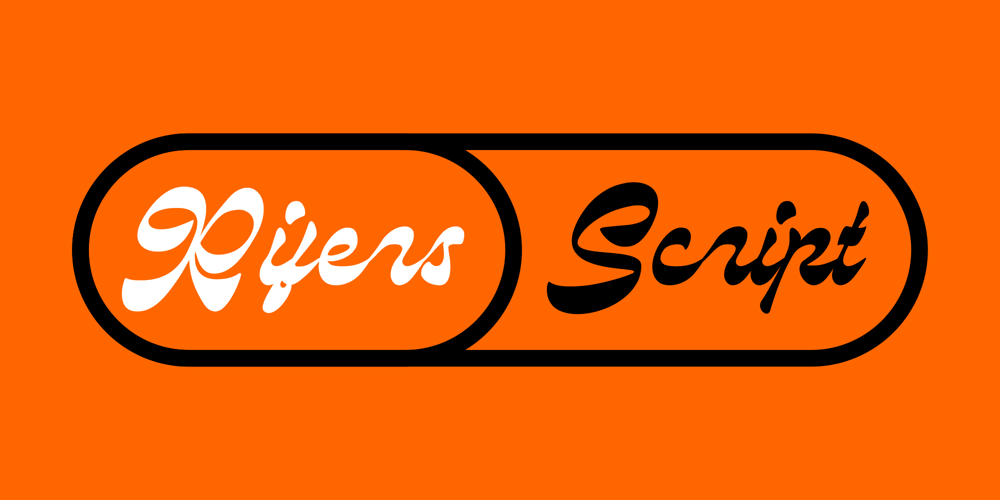
Rifers Script Font Family was designed by Muhammad Jauhar Azmi and published by Brainware Graphic. Rifers Script contains 1 styles and family package options. Rifers is a reverse contrast display script font, inspied by contemporary typography and vintage script typeface. Rifers Script will be nice for logotype and otherbranding and campaign design.